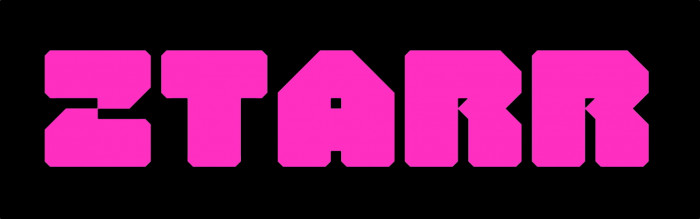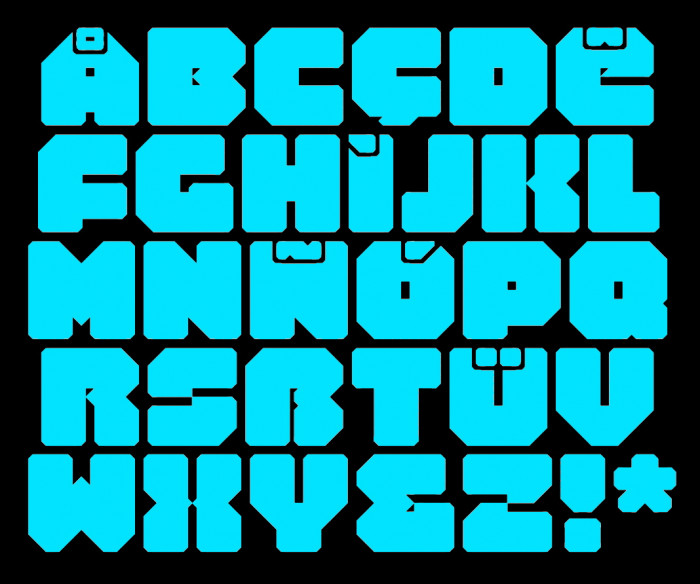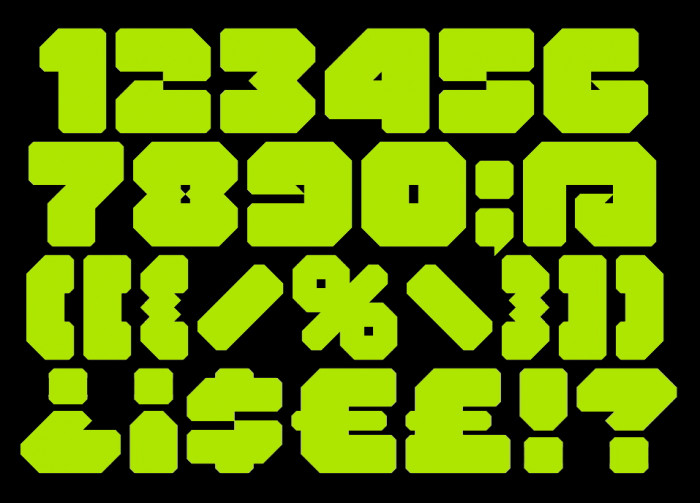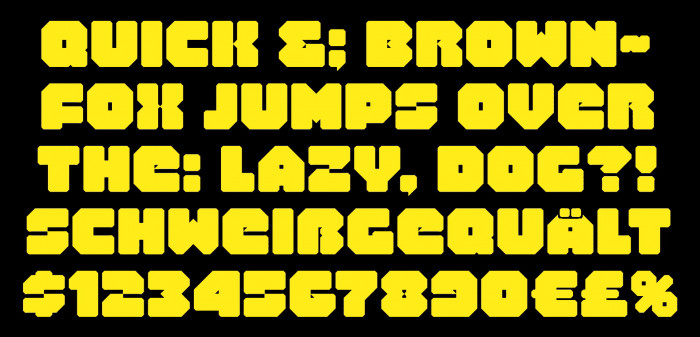
Extra Black font. Inspired by some works of the great Loyalkaspar Studio.
The Syfy logotype!
@Jack West: Hey! I didn't know about this work of yours. It's very interesting to see how the brains of two designers create two different fonts starting from the same three letters... Fascinating! Do you intend to complete it?
I forgot about that, actually - and no, I don't, because apparently, a year after I made that, I took to a program called FontCreator and did a Syfy font with that...
...which isn't all that good compared to my more recent stuff.  Live and learn, practice and patience, you know?